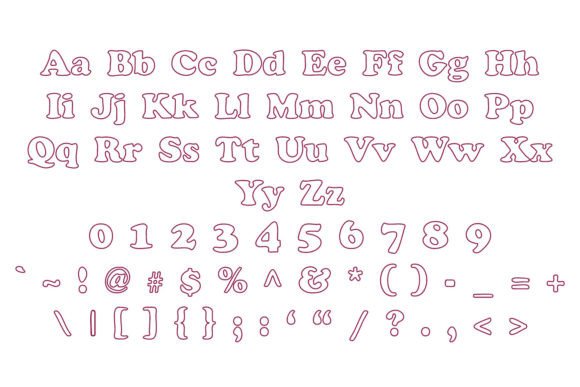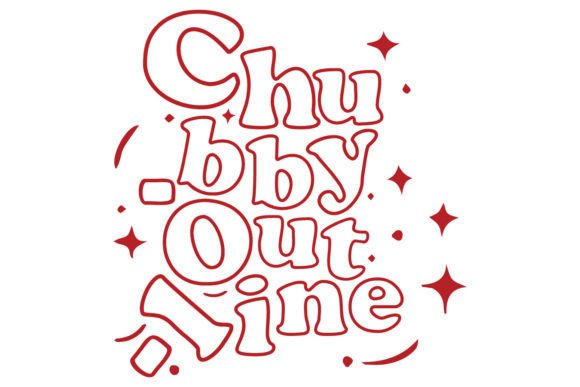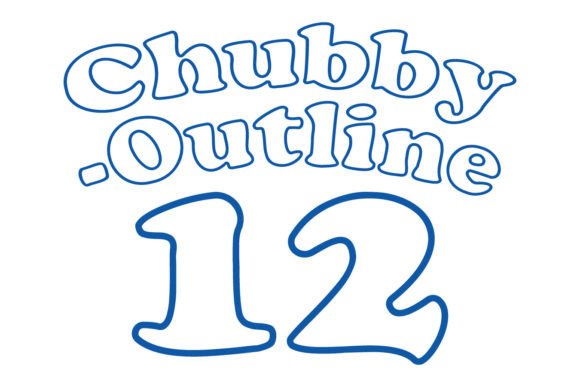
Introducing Chubby Outline: The Retro Font that Brings a Smile
In the world of typography, fonts play a crucial role in setting the tone and personality of a design. Whether you’re working on a poster, social media graphic, or any other visual project, the right font can make all the difference. If you’re looking to add a touch of humor and vintage flair to your designs, look no further than Chubby Outline – a retro and amusing fat font that’s sure to bring a smile to your audience.
The Charm of Chubby Outline
Chubby Outline is a bold and playful font that exudes a light-hearted and nostalgic vibe. Its bold lines and quirky charm make it perfect for designers who want to create a fun and carefree atmosphere in their work. The font’s retro style is reminiscent of classic cartoons and advertisements from the past, evoking a sense of nostalgia and playfulness.
Chubby Outline is a versatile font that can be used in a wide range of projects. Whether you’re designing a poster for a concert, creating social media graphics for a brand, or working on a craft project, this font is sure to add a touch of personality and whimsy. Its bold and playful style makes it perfect for:
- Posters and flyers for events and promotions
- Social media graphics and ads
- Craft projects, such as handmade cards and invitations
- Any project where you want to add a touch of humor and vintage flair
Why Choose Chubby Outline?
So why choose Chubby Outline over other fonts? Here are just a few reasons why this font stands out:
- Unique and playful style: Chubby Outline has a one-of-a-kind retro style that’s sure to grab attention and bring a smile to your audience.
- Easy to read: Despite its bold and playful style, Chubby Outline is easy to read, making it perfect for use in a variety of contexts.
- Versatile: This font can be used in a wide range of projects, from posters and social media graphics to craft projects and branding design.
- Nostalgic vibe: Chubby Outline’s retro style evokes a sense of nostalgia and playfulness, making it perfect for designers who want to create a light-hearted and carefree atmosphere in their work.
Tips for Using Chubby Outline
Here are a few tips for getting the most out of Chubby Outline:
- Use it sparingly: While Chubby Outline is a fun and playful font, it can be overwhelming if used too much. Use it sparingly to add a touch of personality to your design.
- Pair it with other fonts: Chubby Outline pairs well with a variety of other fonts, including sans-serif and script fonts. Experiment with different pairings to find the one that works best for your design.
- Experiment with colors: Chubby Outline looks great in a variety of colors, from bold and bright to pastel and muted. Experiment with different colors to find the one that works best for your design.
If you’re looking to add a touch of humor and vintage flair to your designs, Chubby Outline is the perfect font for you. Its bold and playful style, nostalgic vibe, and versatility make it a great choice for a wide range of projects. Whether you’re a designer, crafter, or simply someone who loves to create, Chubby Outline is sure to bring a smile to your audience and help you achieve your design goals.
Get Creative with Chubby Outline!